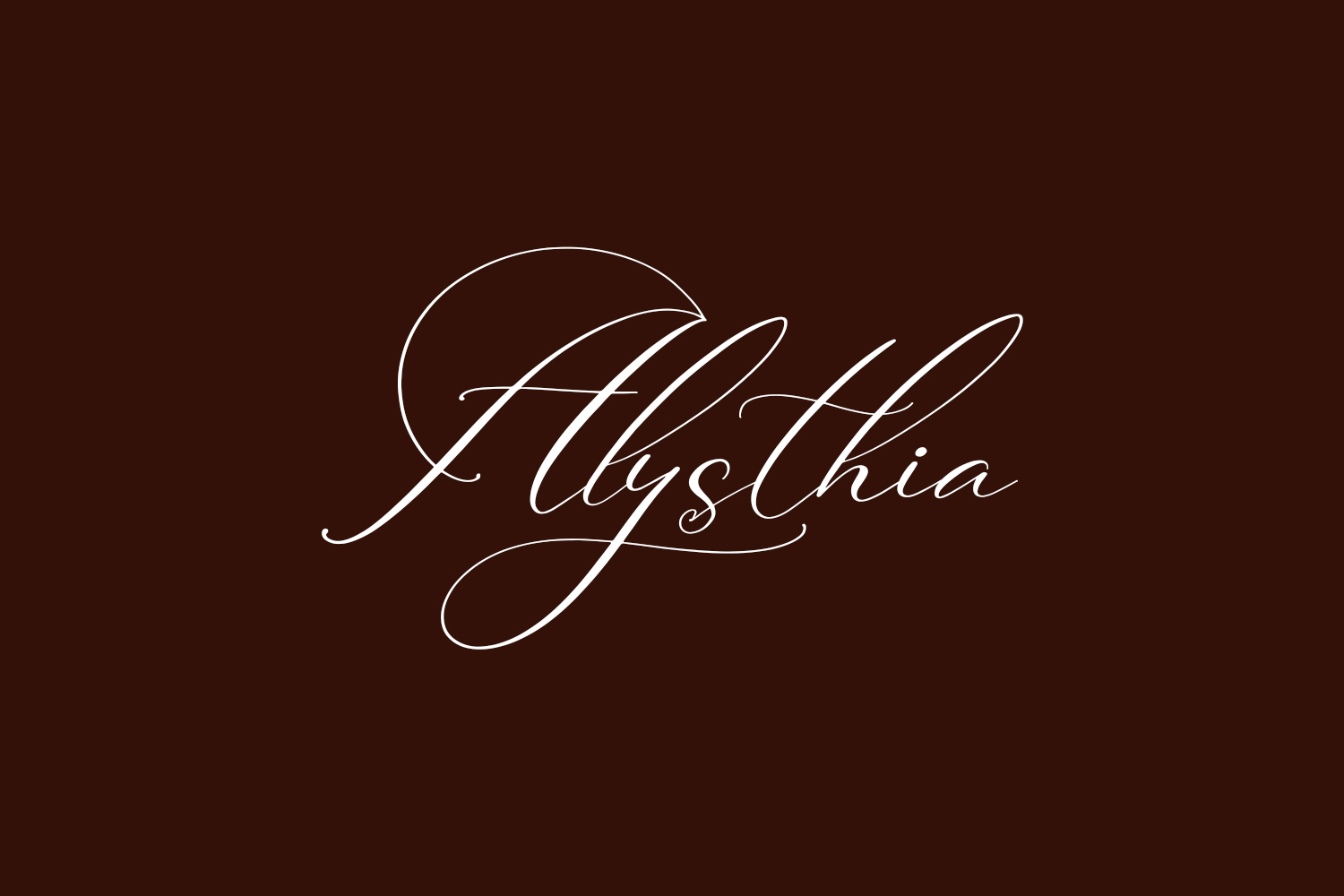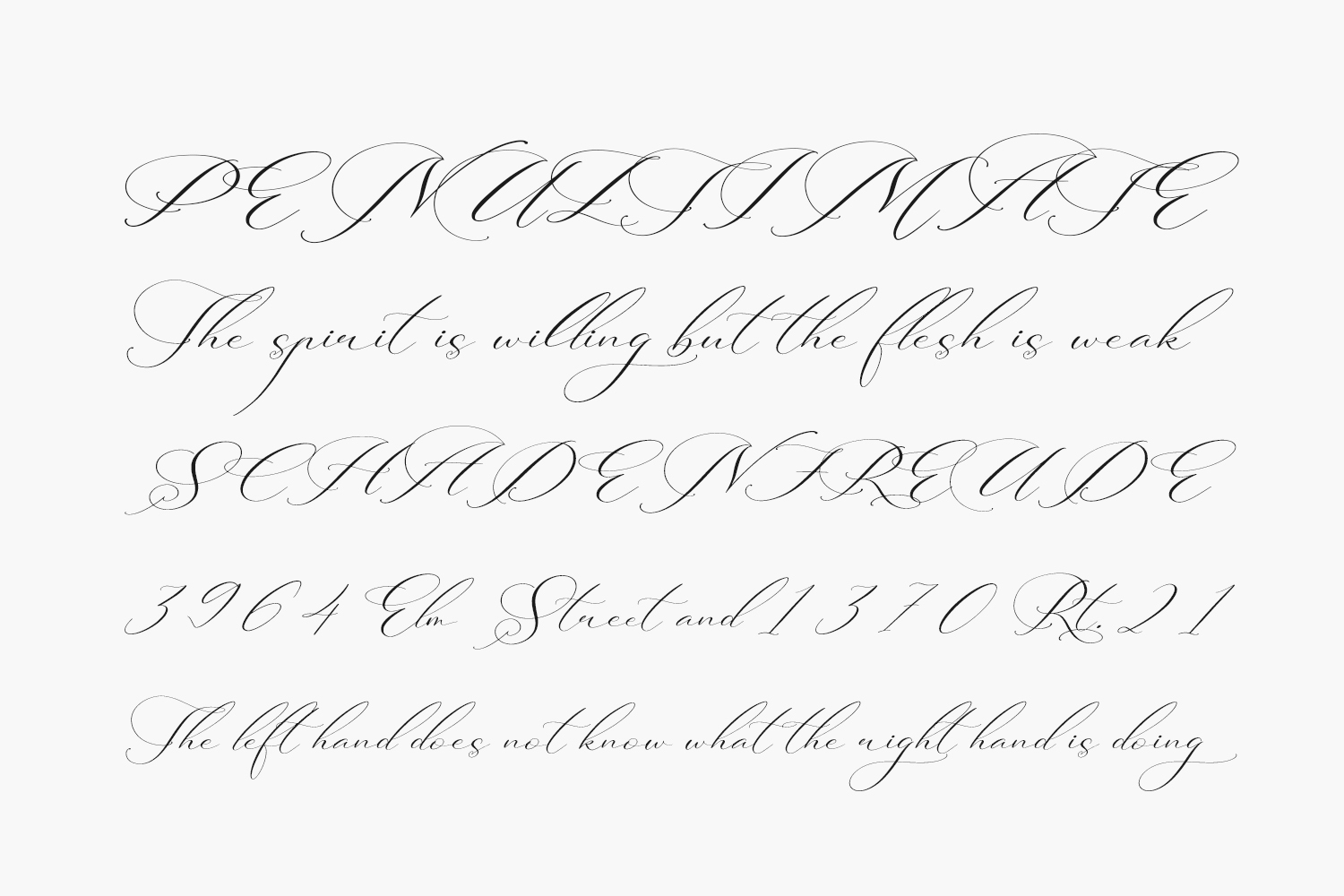
Alysthia Free Font is a beautiful and refined script font. It has a classy, elegant and modern look that can be used for logos, branding, invitations, stationery, wedding designs, social media posts, and much more. Alysthia Free Font is free for personal use only. Please purchase the full version for commercial use.
Designed by Integritype Studio